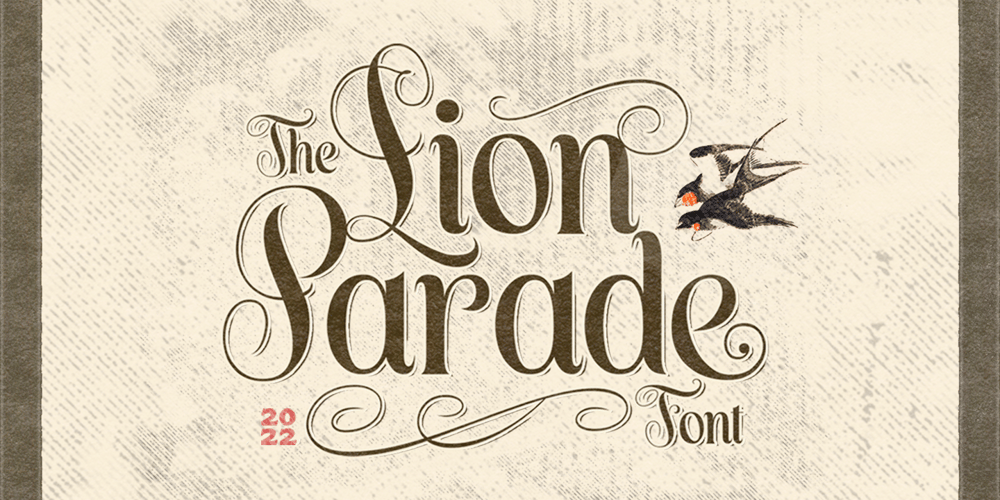
Lion Parade Font Family was designed by Hendry Juanda and published by Letterhend. Lion Parade contains 1 styles and family package options. The Lion Parade Font is a unique and classic display font. It’s a serif font with swashes! This font perfectly made to be applied especially in logo, and the other various formal forms such as invitations, labels, logos, magazines, books, greeting / wedding cards, packaging, fashion, make up, stationery, novels, labels or any type of advertising purpose.Features : uppercase & lowercase numbers and punctuation multilingual ligatures alternates PUA encoded We highly recommend using a program that supports OpenType features and Glyphs panels like many of Adobe apps and Corel Draw, so you can see and access all Glyph variations.